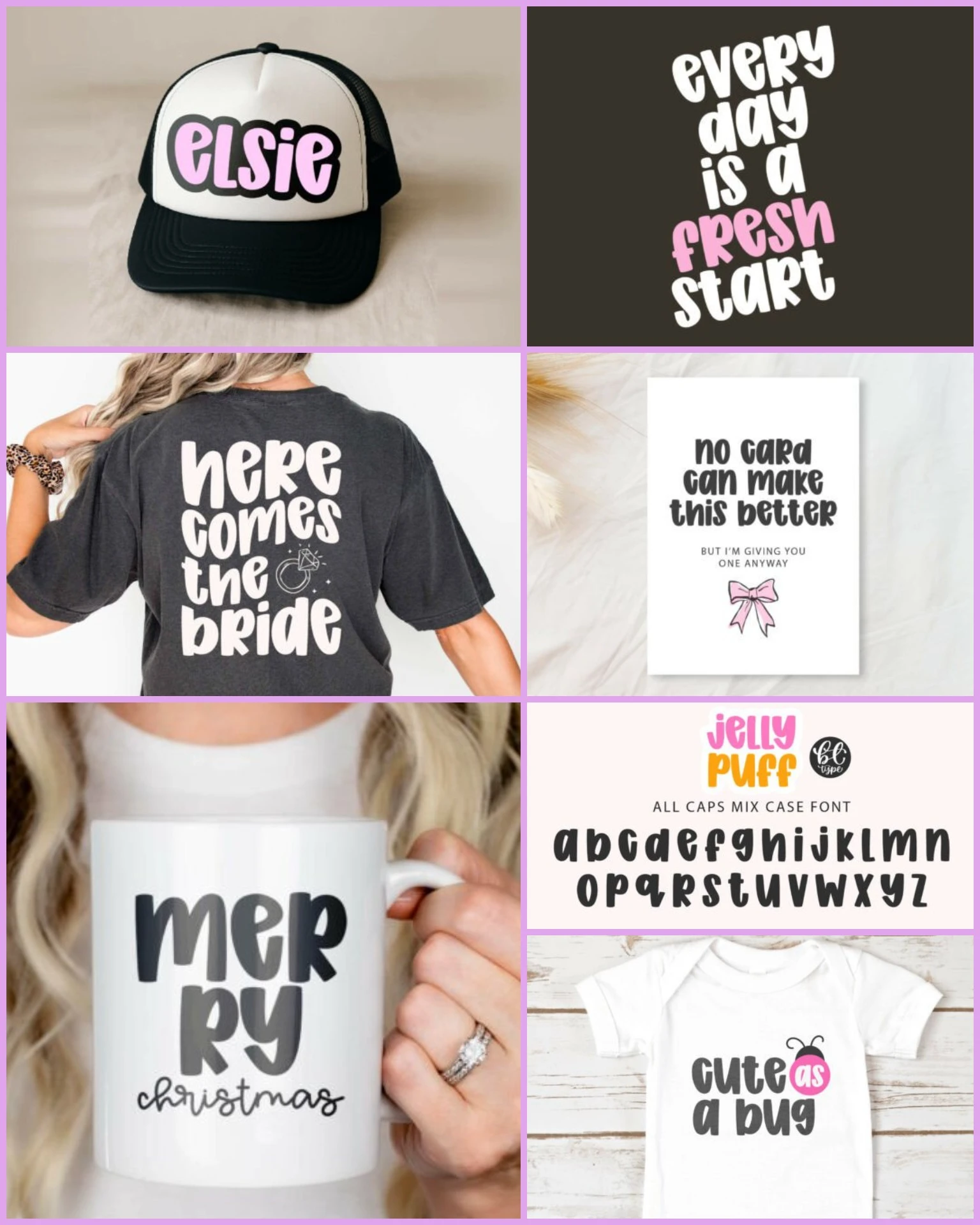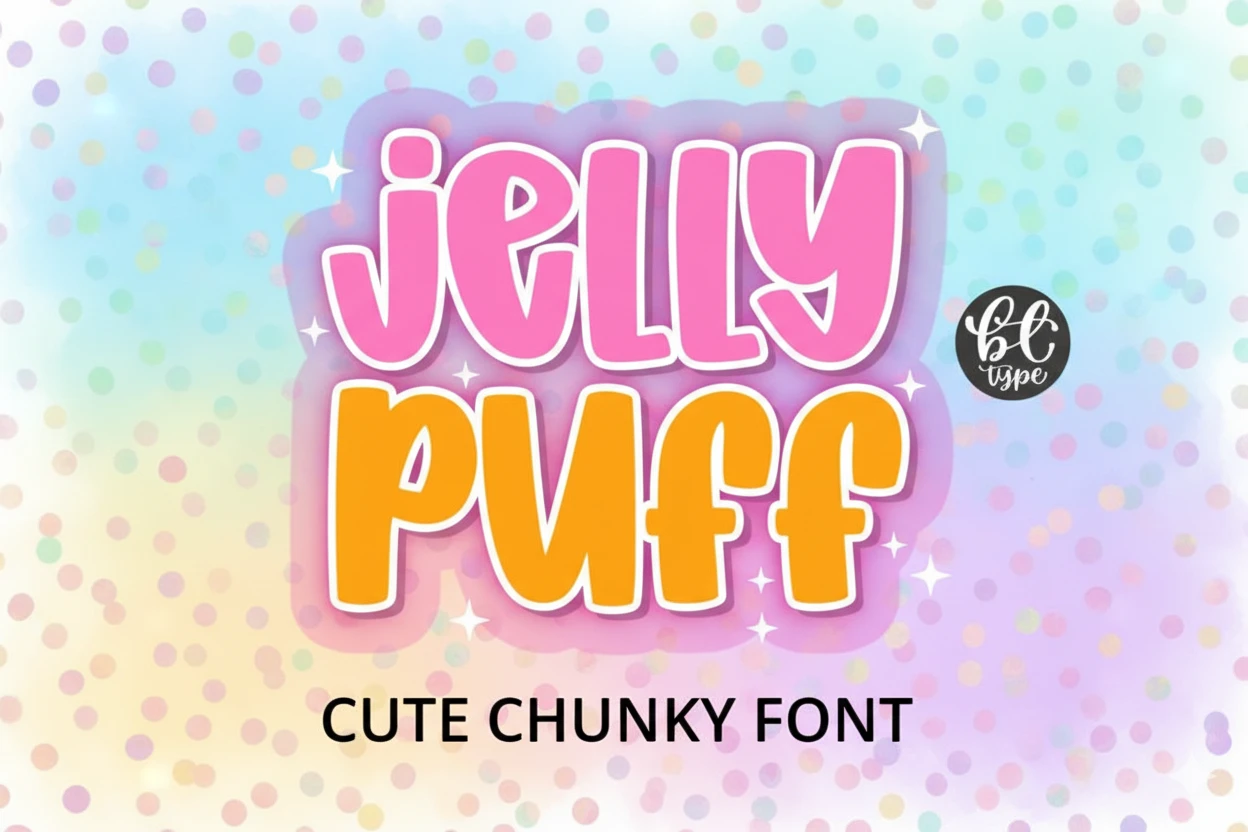
Jelly Puff is a cute, chunky, and delightfully squishy display font designed to bring instant joy to any project. With its ultra-rounded, puffy letterforms and playful bubble-letter aesthetic, this font looks as soft and bouncy as candy, balloons, or marshmallows. Every character feels friendly, adorable, and full of charm, making Jelly Puff perfect for fun, youthful, and high-energy designs.
This bubbly typeface is ideal for children’s branding, sweet and candy packaging, sticker designs, toy labels, classroom materials, and cheerful logos. It also shines in Cricut projects, Procreate lettering, T-shirt designs, planners, notebooks, and digital crafts. Whether you’re creating Kawaii graphics, playful social media quotes, or vibrant merchandise, Jelly Puff gives your work a bold, cute, and irresistibly happy personality.
With its chunky shapes, soft edges, and vibrant presence, Jelly Puff is the perfect choice for designers who want a lively, friendly, and eye-catching font that pops off the page with charm and character.